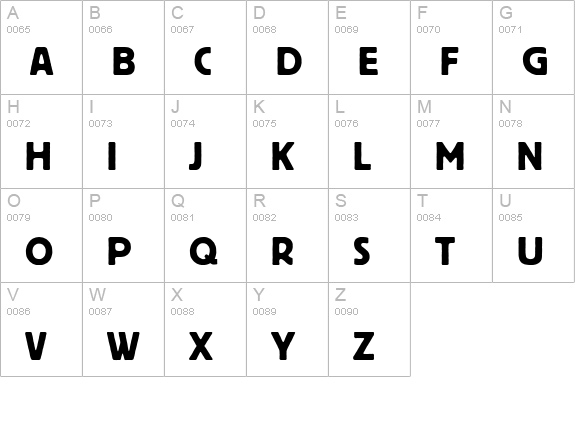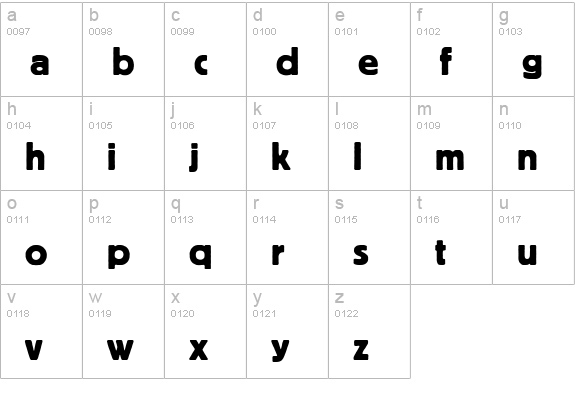
Block Berthold Regular is the standard, neutral variant in the Block typeface family \xE2\x80\x94 well suited to general body text, paragraphs, and standard typographic work.
Block Berthold Regular is a classic and versatile sans-serif typeface that exudes strength and clarity. With its clean lines and geometric forms, this font is perfect for conveying a bold and modern aesthetic in a wide range of design projects. The balanced proportions and sturdy letterforms of Block Berthold Regular make it ideal for headlines, branding, and editorial layouts. What sets Block Berthold Regular apart is not only its timeless design but also the fact that it is available for free download at FontsMarket.com. This means that designers and creatives can easily access and use this high-quality font in their projects without any cost. Whether you're working on a website, poster, or logo, Block Berthold Regular is a reliable choice that will help you achieve a professional and polished look. Download it now and unleash the power of this versatile typeface in your designs.